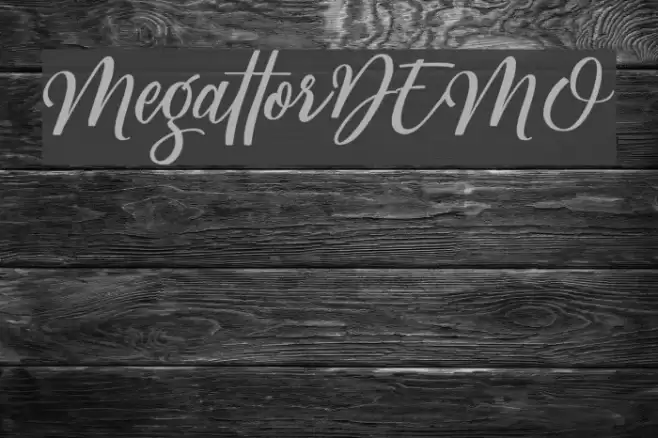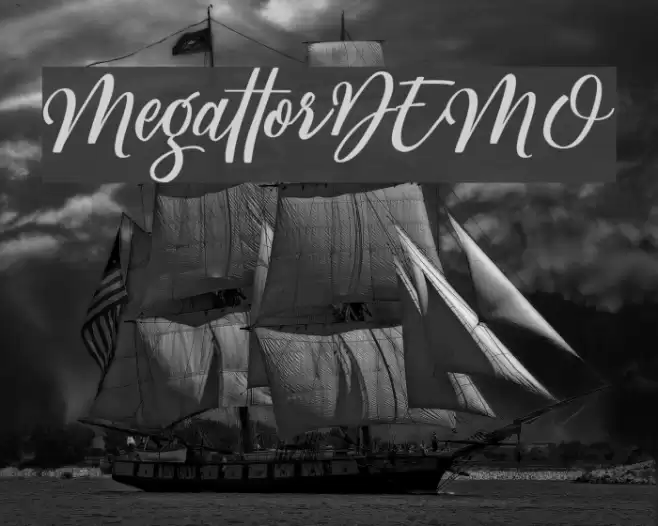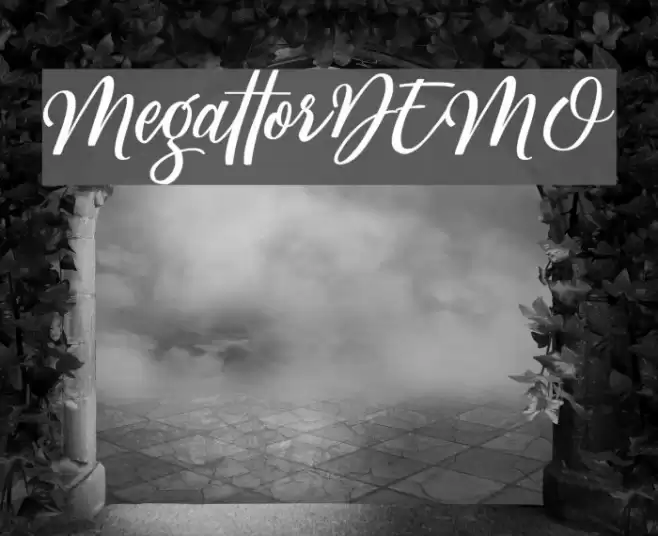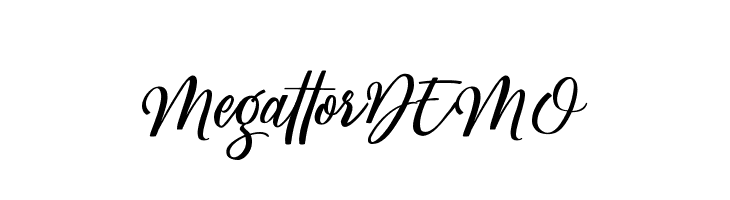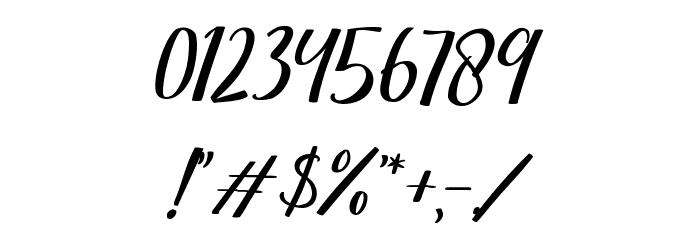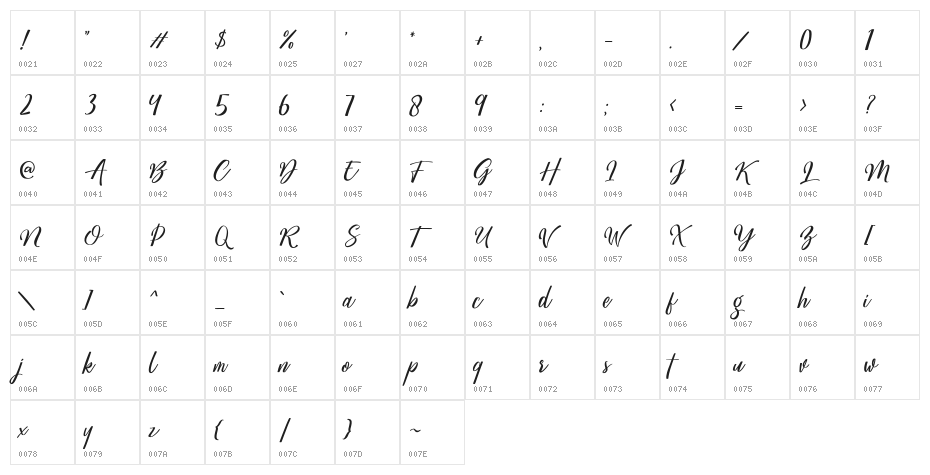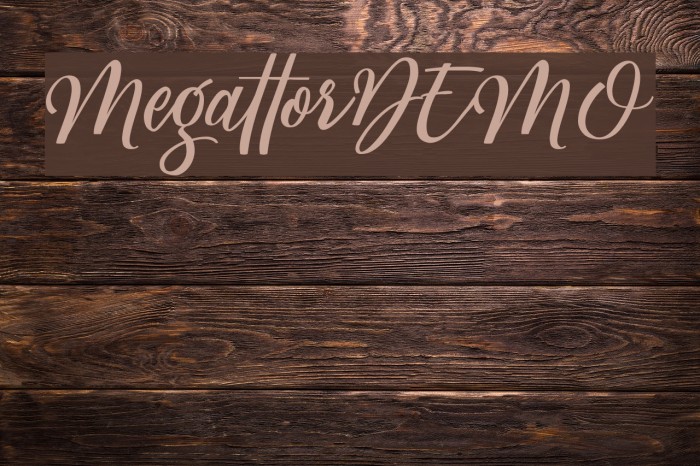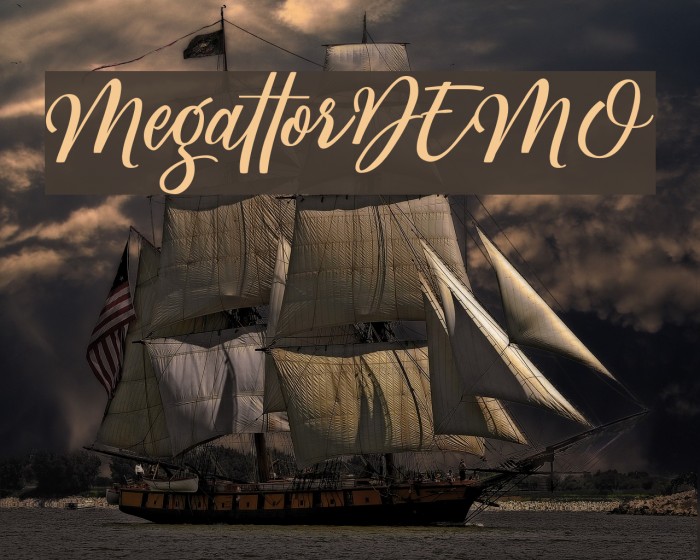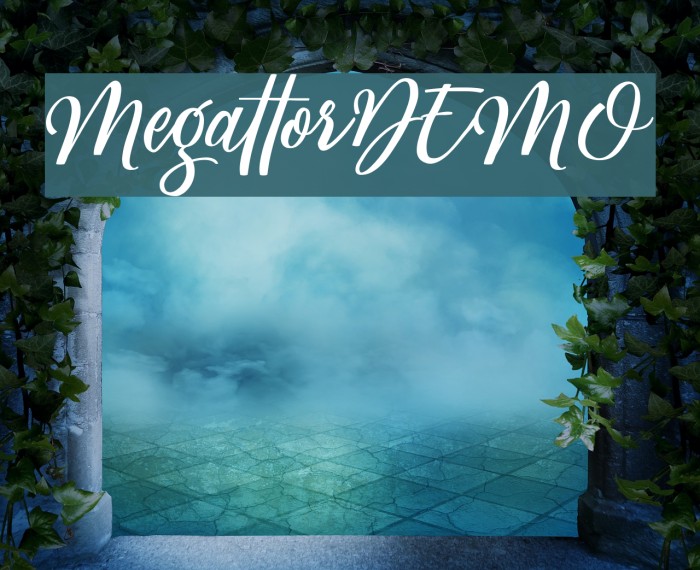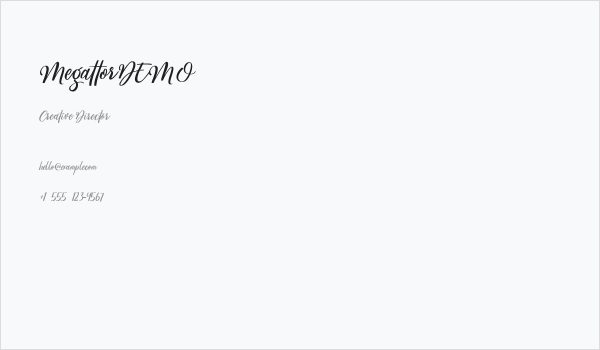
MegattorDEMO Font
MegattorDEMO Description
This font exudes a dynamic and elegant script style, characterized by its fluid, cursive strokes and a sense of movement. The uppercase letters are bold and sweeping, with a slight slant that adds to the overall graceful appearance. The lowercase letters maintain a consistent flow, with some characters featuring distinctive loops and flourishes that enhance its decorative appeal. The numerals are clear and legible, maintaining the script style while ensuring readability. Special characters are integrated seamlessly, matching the overall aesthetic. This font is ideal for projects that require a touch of sophistication and flair.
A dynamic and elegant script font with fluid, cursive strokes and decorative flourishes from Uncategorized fonts.
- Proposed Projects: Ideal for wedding invitations, branding, greeting cards, and elegant packaging designs.
- Use Case: Logos, Headlines, Invitations